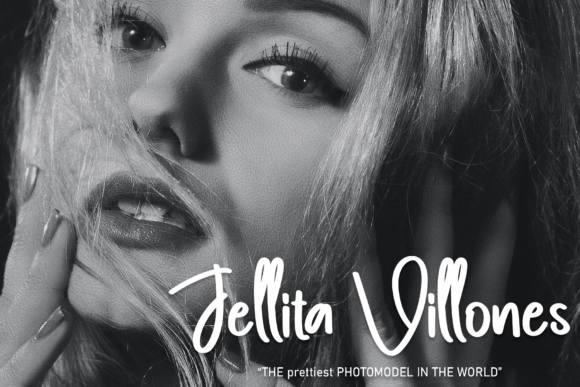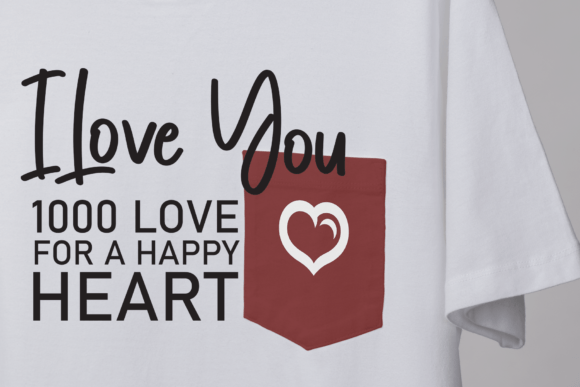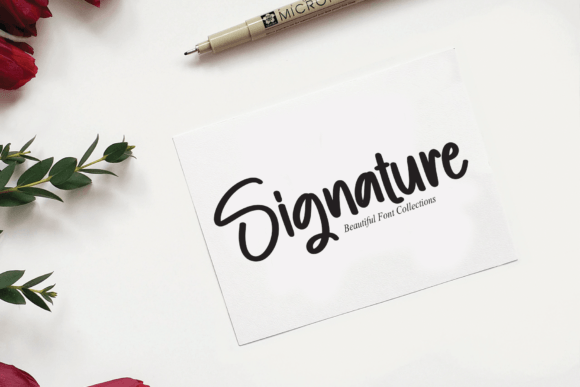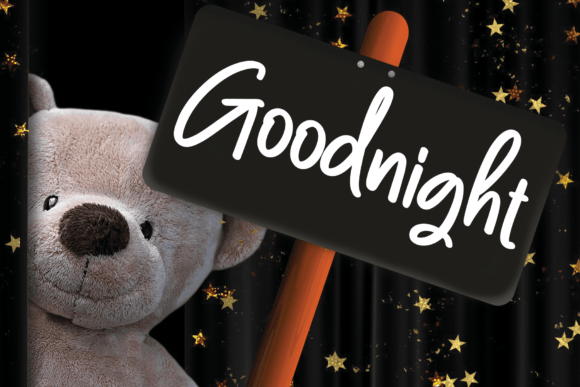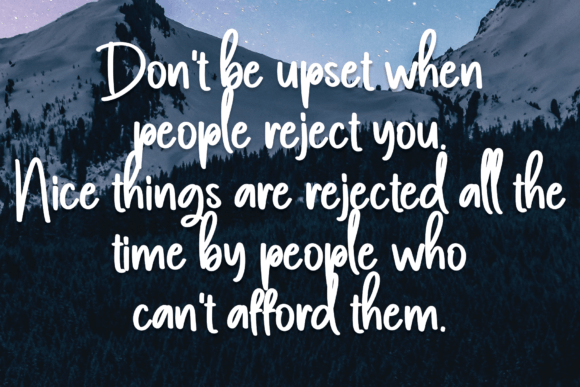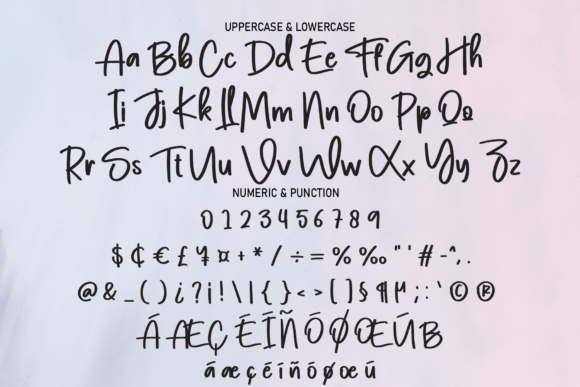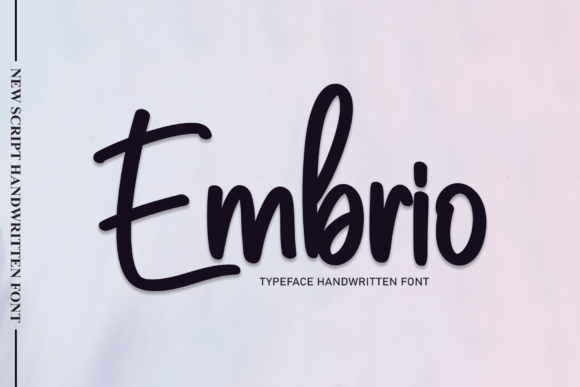
Introducing Embrio Font: The Ultimate Handwritten Script for Creative Projects
Are you a designer, crafter, or DIY enthusiast looking for a font that can add a personal touch to your creative projects? Look no further than Embrio Font, a cute and quirky handwritten script that is sure to bring a friendly feel to any design. In this article, we’ll take a closer look at Embrio Font, its features, and how it can be used to elevate your creative projects.
What is Embrio Font?
Embrio Font is a handwritten script font that is designed to be both cute and quirky. Its incredibly friendly feel makes it perfect for a wide range of creative projects, from social media graphics and Instagram posts to DIY crafts and handmade products. With Embrio Font, you can add a personal touch to your designs and make them stand out from the crowd.
Key Features of Embrio Font
So, what makes Embrio Font so special? Here are just a few of its key features:
- Cute and Quirky Design: Embrio Font has a unique and playful design that is sure to capture the attention of your audience.
- Handwritten Script: Embrio Font is a handwritten script font, which gives it a personal and authentic feel.
- Friendliness: Embrio Font has an incredibly friendly feel, making it perfect for designs that need to convey a sense of approachability and warmth.
- Versatility: Embrio Font can be used for a wide range of creative projects, from social media graphics to DIY crafts.
Using Embrio Font for Instagram and Social Media
If you’re a social media enthusiast or a business owner looking to elevate your Instagram game, Embrio Font is a great choice. Its cute and quirky design makes it perfect for creating eye-catching graphics and posts that will stand out from the crowd. Here are a few ideas for using Embrio Font on Instagram:
- Quotes and Inspiration: Use Embrio Font to create inspiring quotes and messages that will resonate with your audience.
- Product Showcases: Use Embrio Font to create product showcases that are both visually appealing and easy to read.
- Behind-the-Scenes: Use Embrio Font to create behind-the-scenes content that gives your audience a glimpse into your creative process.
Using Embrio Font for DIY Projects
Embrio Font is not just limited to digital projects. It can also be used for a wide range of DIY projects, from handmade cards and invitations to craft labels and signs. Here are a few ideas for using Embrio Font for DIY projects:
- Handmade Cards: Use Embrio Font to create personalized handmade cards for special occasions.
- Invitations: Use Embrio Font to create custom invitations for parties, weddings, and other events.
- Craft Labels: Use Embrio Font to create labels for your craft projects, such as knitted items, jewelry, and other handmade goods.
Tips for Using Embrio Font
Here are a few tips for using Embrio Font effectively:
- Experiment with Colors: Embrio Font looks great in a variety of colors, so don’t be afraid to experiment and find the perfect color scheme for your project.
- Mix and Match: Embrio Font can be paired with other fonts and graphics to create a unique and visually appealing design.
- Keep it Simple: Embrio Font is a simple and easy-to-read font, so keep your design simple and uncluttered to make the most of its friendly feel.
Embrio Font is a versatile and friendly handwritten script font that is perfect for a wide range of creative projects. Its cute and quirky design makes it ideal for social media graphics, DIY crafts, and handmade products. With its ease of use and flexibility, Embrio Font is a great choice for designers, crafters, and DIY enthusiasts looking to add a personal touch to their designs. So why not give Embrio Font a try and see how it can elevate your creative projects?